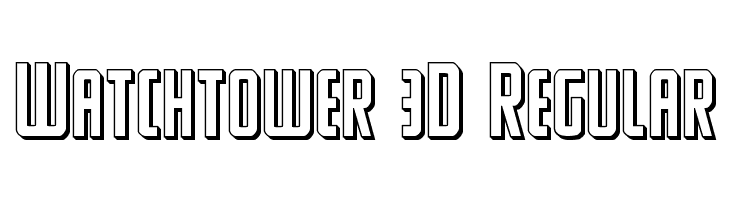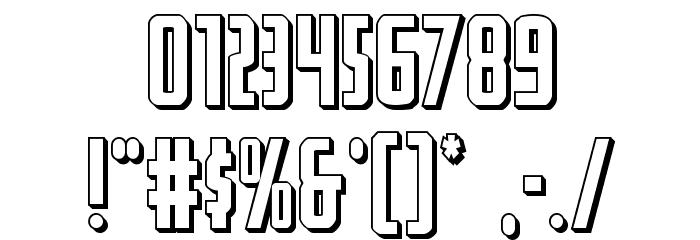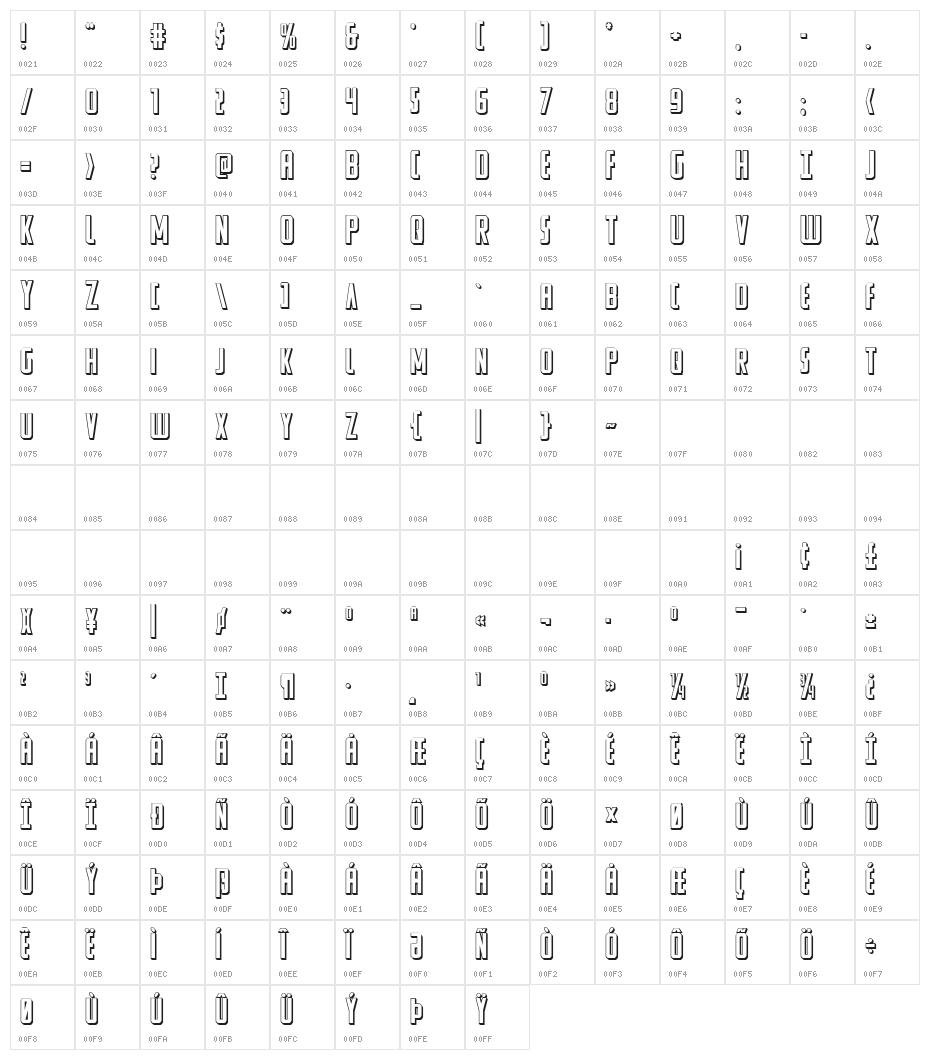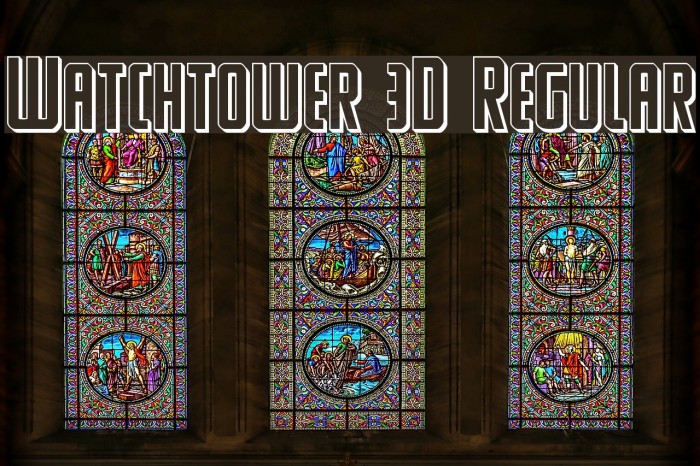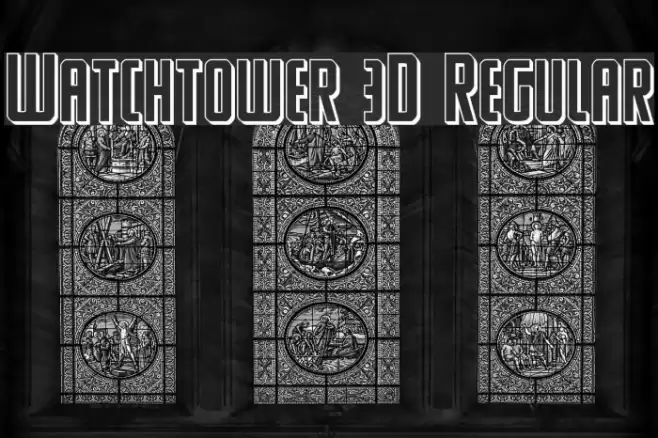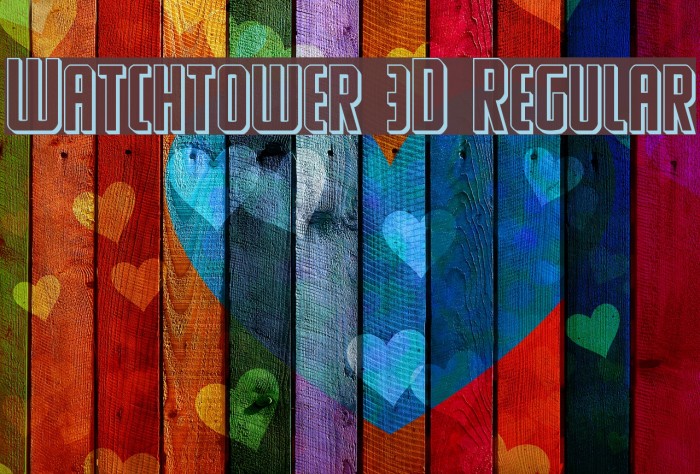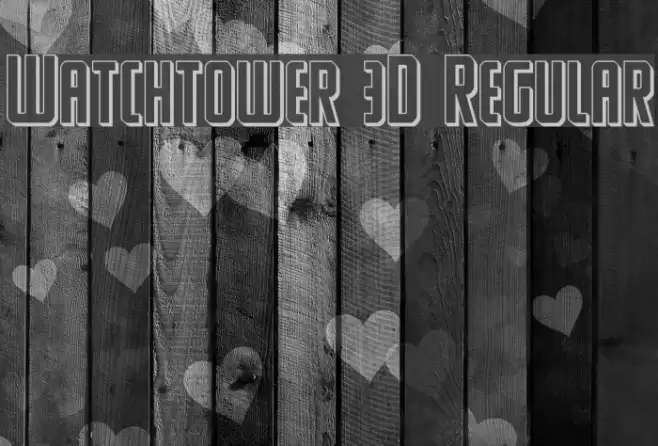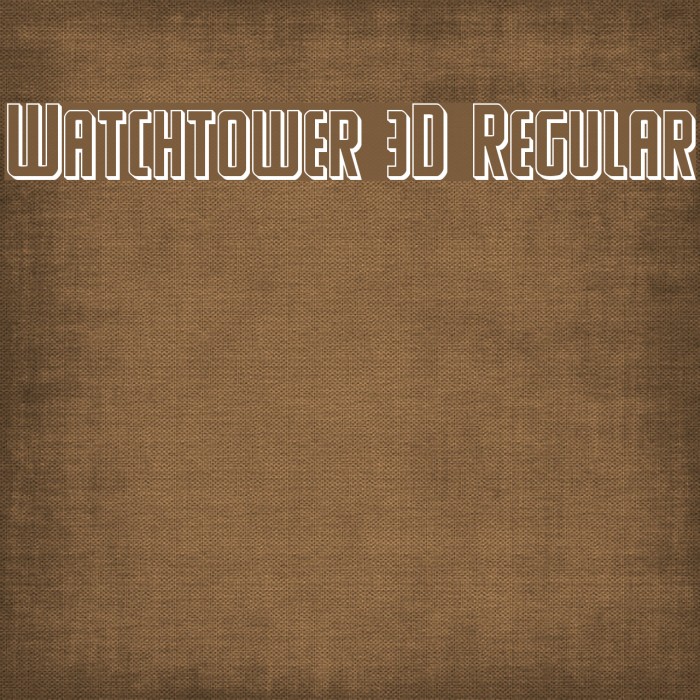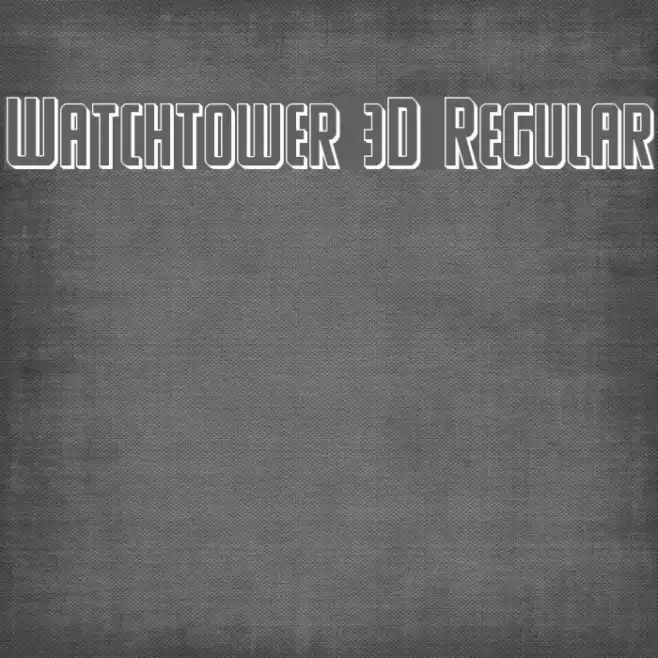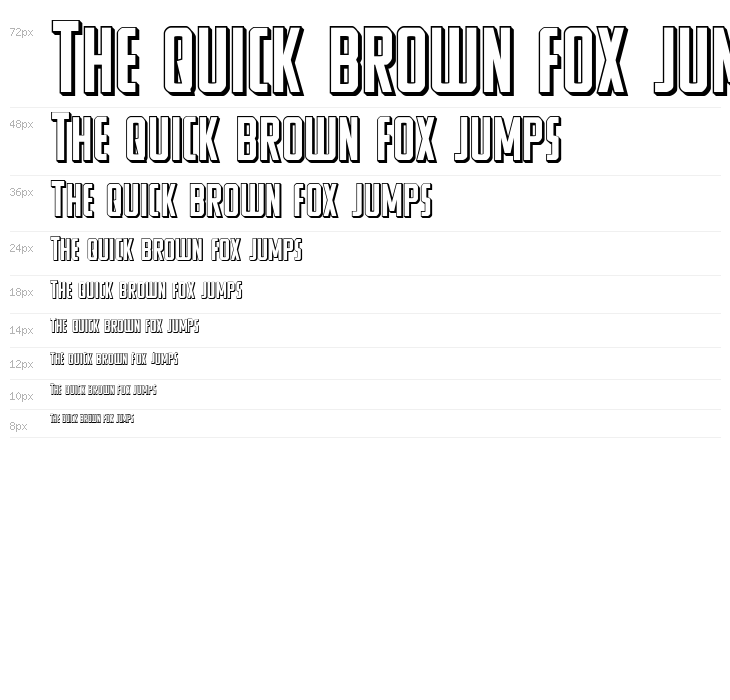
Watchtower 3D Regular Font
Watchtower 3D Regular Description
This font features a bold, three-dimensional appearance with a strong, impactful presence. The characters are outlined, creating a shadow effect that gives them depth and a sense of movement. The uppercase letters are uniform in height, while the numbers and special characters maintain the same stylistic approach, ensuring consistency across all elements. The font's geometric structure and clean lines make it suitable for attention-grabbing designs. The spacing between characters is normal, allowing for readability while maintaining its bold aesthetic.
| Proposed Projects | Ideal for posters, headlines, logos, and any design requiring a striking visual impact. |